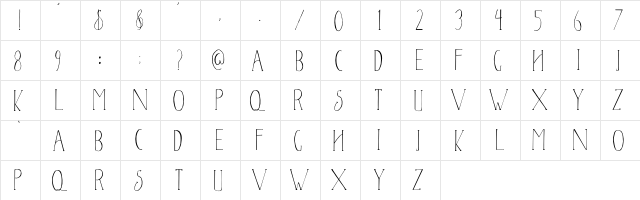
NewYear 2017 Regular
| Designer | Ahsan |
Design Context for NewYear 2017 Typeface
NewYear 2017 offers clean, dependable letterforms without strong stylistic allegiance, making it a practical choice for designers who need flexibility.